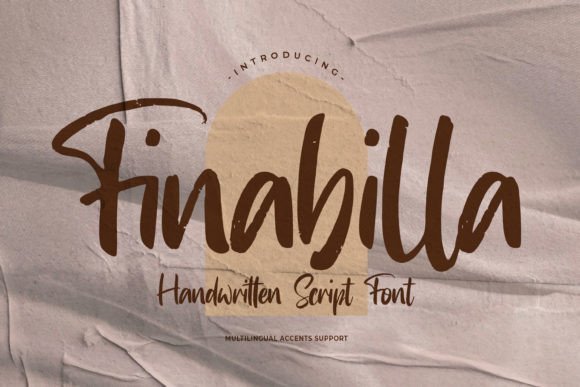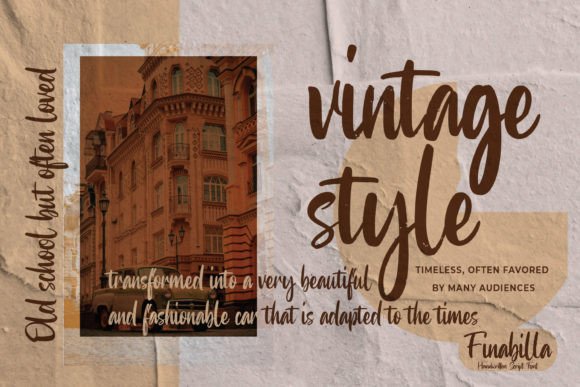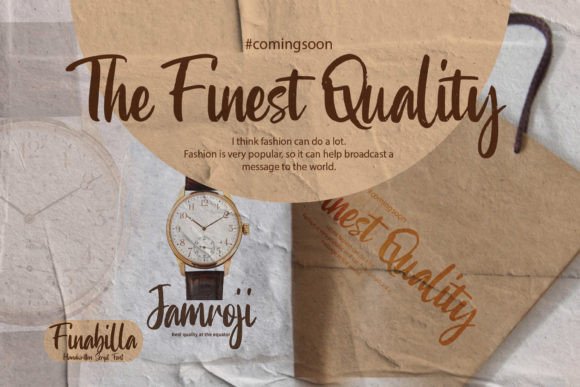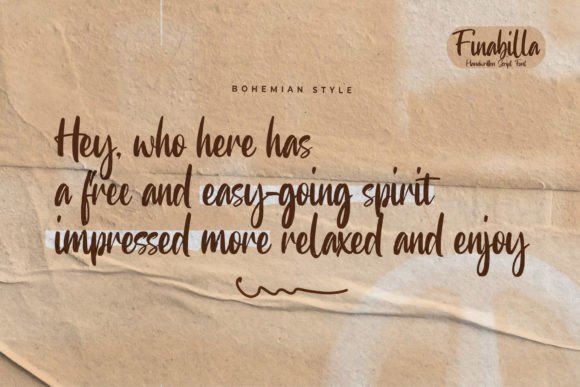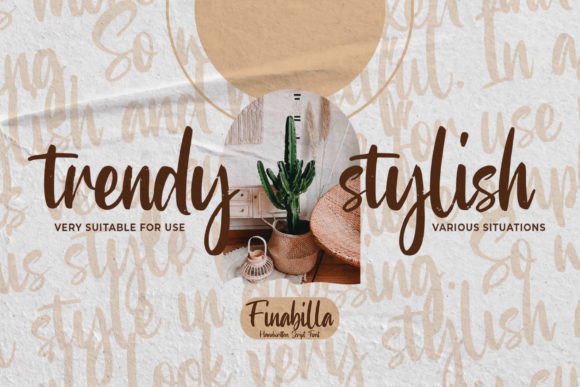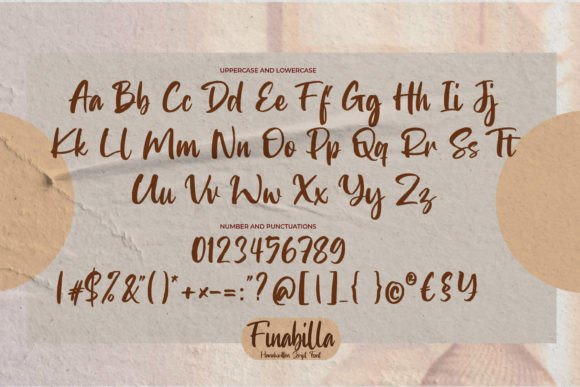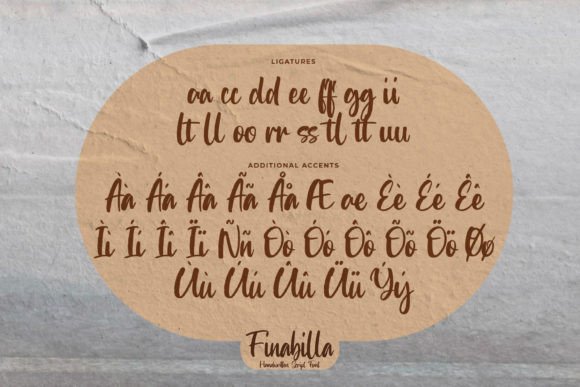
Discover the Whimsy of Finabilla Font
There’s something magical about a handwritten note or a beautifully crafted invitation that makes you feel like you’re part of a special moment. Maybe it’s the imperfections, the quirks, or the love that goes into creating something unique. Whatever it is, it’s a feeling that we all crave in our designs. And that’s exactly what the Finabilla Font aims to capture – a sense of natural, handmade beauty that elevates any project.
This lovely handwritten font is perfect for designers looking to add a personal touch to their work. Whether it’s a wedding invitation, a logo, or a book cover, the Finabilla Font will give your design a unique charm that sets it apart. Its PUA encoding also makes it easy to access the special glyphs and characters that will take your design to the next level.
Finabilla Font Key Features
- Unique Characteristics: Finabilla Font features a unique, hand-drawn design with a mix of script and serif elements, making it perfect for creating a personal and elegant look.
Finabilla Font Review
Overall, I’m quite impressed with the Finabilla font. Here are the things that caught my eye: ✨
- Unique style: Finabilla has a quirky, playful feel that makes it perfect for creative projects. The unique letterforms and flourishes add a touch of whimsy to any design.
- High-quality rendering: The font is well-crafted and renders beautifully on various devices and screen sizes.
- Customizable: Finabilla comes with a range of OpenType features that allow for advanced typographic control.
- Limited language support: Finabilla currently only supports Latin scripts, which may limit its use for multilingual projects.
- No bold or italic weights: While the font has a range of styles, it’s missing bold and italic weights, which may make it less versatile for certain designs.
Overall, I’d say Finabilla is a solid choice for designers looking for a unique and creative font. While it may not be perfect, its strengths outweigh its weaknesses, and I’d definitely consider using it for future projects.
Getting the Most Out of Finabilla Font
To get the most out of Finabilla Font, use it for titles, headings, and emphasis in your designs.
Experiment with different font sizes and colors to create visual hierarchy and emphasis in your designs.
Finabilla Font is ideal for:
- Business cards and branding materials
- Party and event invitations
Alternatives to Finabilla Font
Playfair Display is a luxurious, high-end serif font ideal for creating a sophisticated and elegant look. It is perfect for use in magazine titles, luxury brand logos, and high-end product packaging. Playfair Display is more ornate and decorative compared to Finabilla Font, which is more elegant and refined.
Carolyna Pro is a modern, elegant script font that works well for creating a sense of luxury and sophistication. It is ideal for use in high-end branding, magazine titles, and product packaging. Carolyna Pro is more flowing and cursive compared to Finabilla Font, which is more formal and refined.
Lato is a modern sans-serif font that is highly versatile and works well for a wide range of applications, from body text to headings. It is ideal for use in digital design, such as websites and mobile apps. Lato is more modern and minimalist compared to Finabilla Font, which is more elegant and refined.